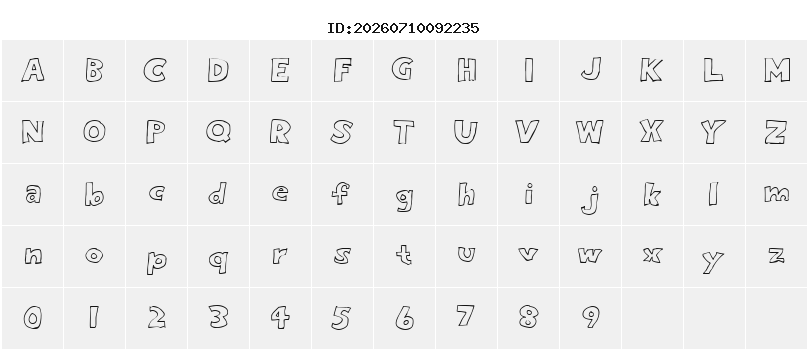
• Font Name: Eighty Percent Outline
• Full Font Name: Eighty Percent Outline
Eighty Percent Outline.ttf is a modern, elegant sans-serif font designed for ultimate readability and visual harmony. Perfect for branding, headlines, web design, and print materials.